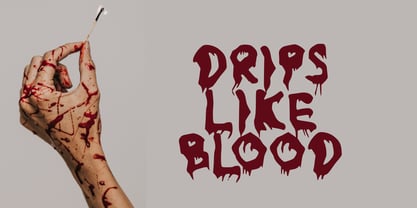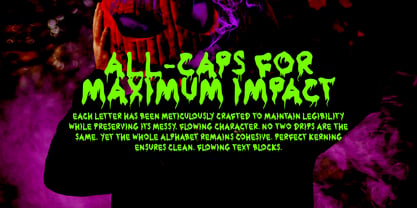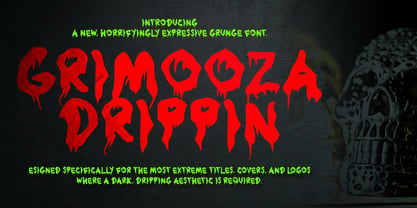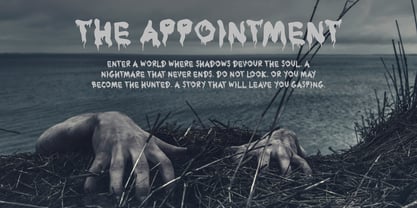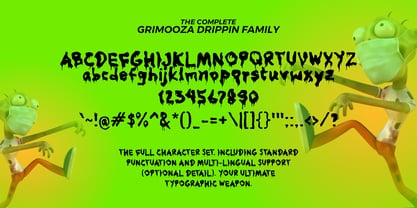
Grimooza Drippin
by Mei Suseno
The Grimooza Drippin Font Family was designed by Wahyu Eka Prasetya, Mei Suseno and published by Mei Suseno. Grimooza Drippin contains 2 styles and family package options. More about this family
Grimooza Drippin is a bold and terrifying grunge display font designed to evoke a dark, horror-inspired atmosphere. Featuring thick, hand-crafted letterforms with dramatic dripping effects, this typeface captures the essence of fear, mystery, and chaos. Its highly expressive style makes it perfect for horror movie posters, Halloween promotions, heavy metal album covers, game titles, haunted attraction branding, and striking logo designs.
The font combines rough, organic shapes with a fluid dripping aesthetic, creating a sense of movement and unease that immediately grabs attention. Despite its wild appearance, Grimooza Drippin remains highly legible at large sizes, making it an excellent choice for impactful headlines and visual identities that demand a sinister edge.
Designers: Wahyu Eka Prasetya, Mei Suseno
Foundry: Mei Suseno
Grimooza Drippin